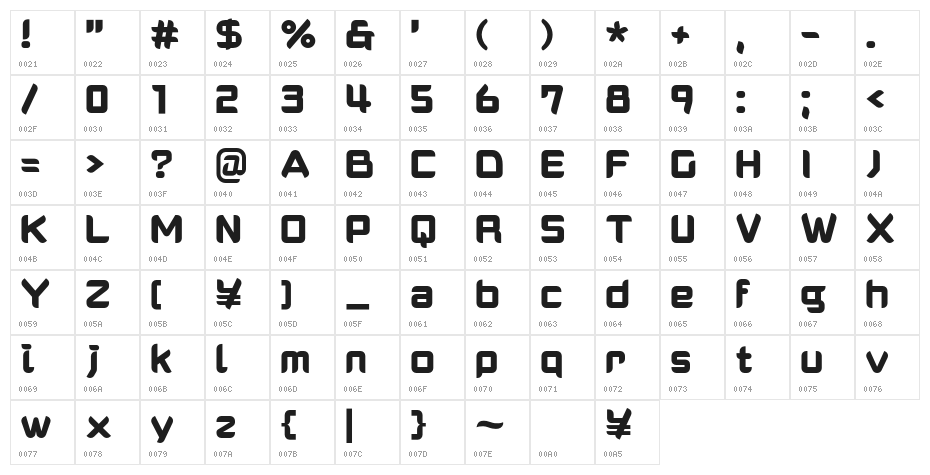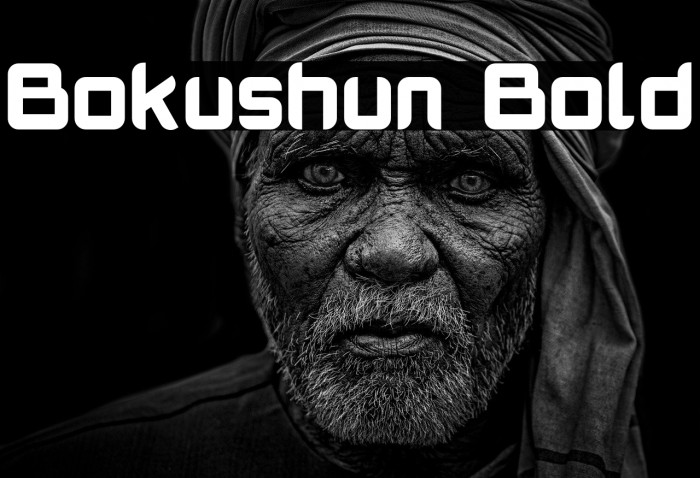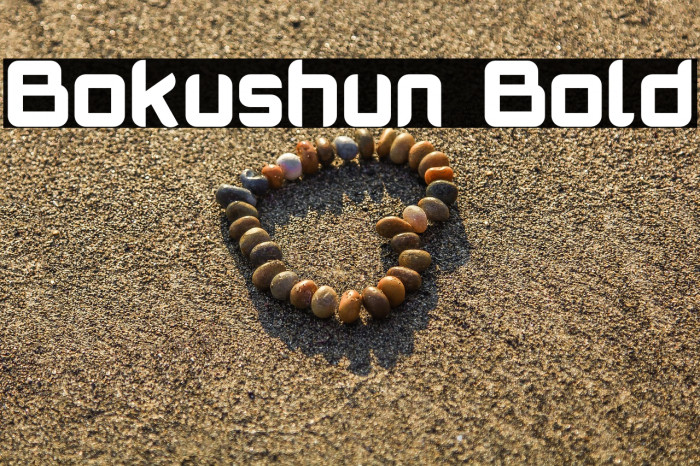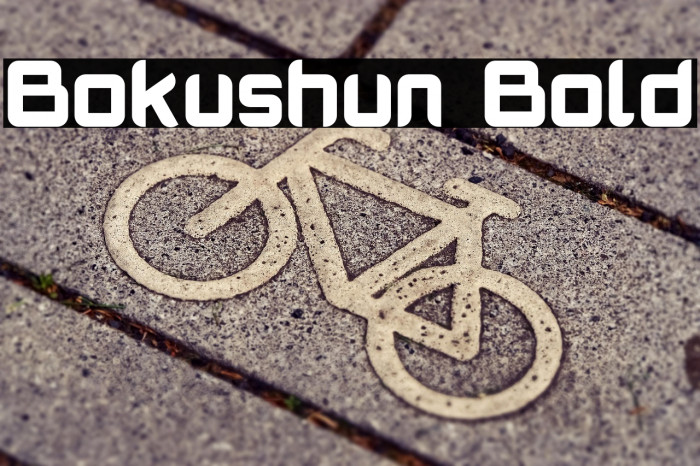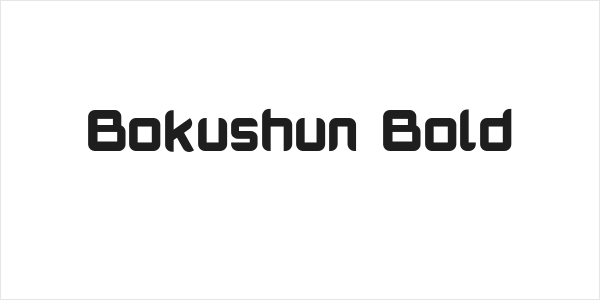
Bokushun Bold Font
Bokushun Bold Description
This font features a bold, geometric style with rounded edges, giving it a modern and approachable appearance. The characters are uniformly thick, providing a strong visual presence. The uppercase and lowercase letters maintain a consistent height, contributing to a cohesive look. The numerals and special characters are designed to match the boldness of the alphabet, ensuring a harmonious overall design. The font's structure is clean and straightforward, making it suitable for various applications where clarity and impact are desired.
BOKUSHUN-BOLD UPPERCASE
BOKUSHUN-BOLD LOWERCASE
BOKUSHUN-BOLD OTHER CHARS